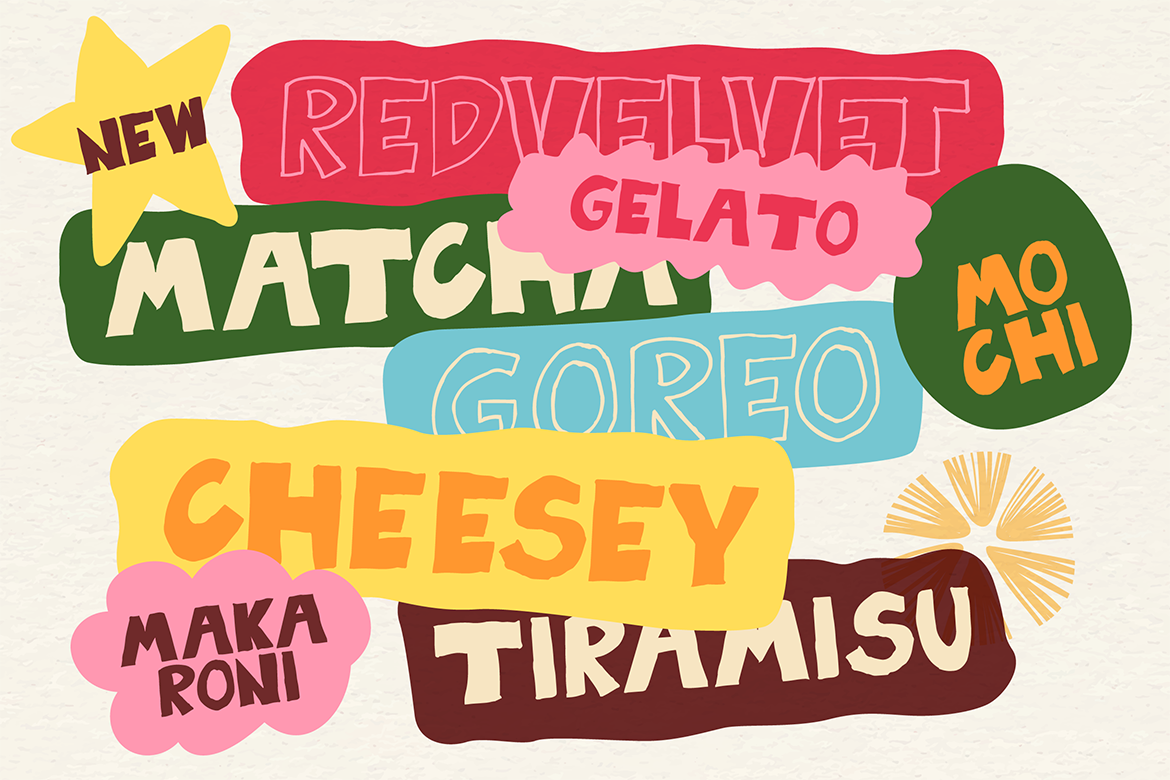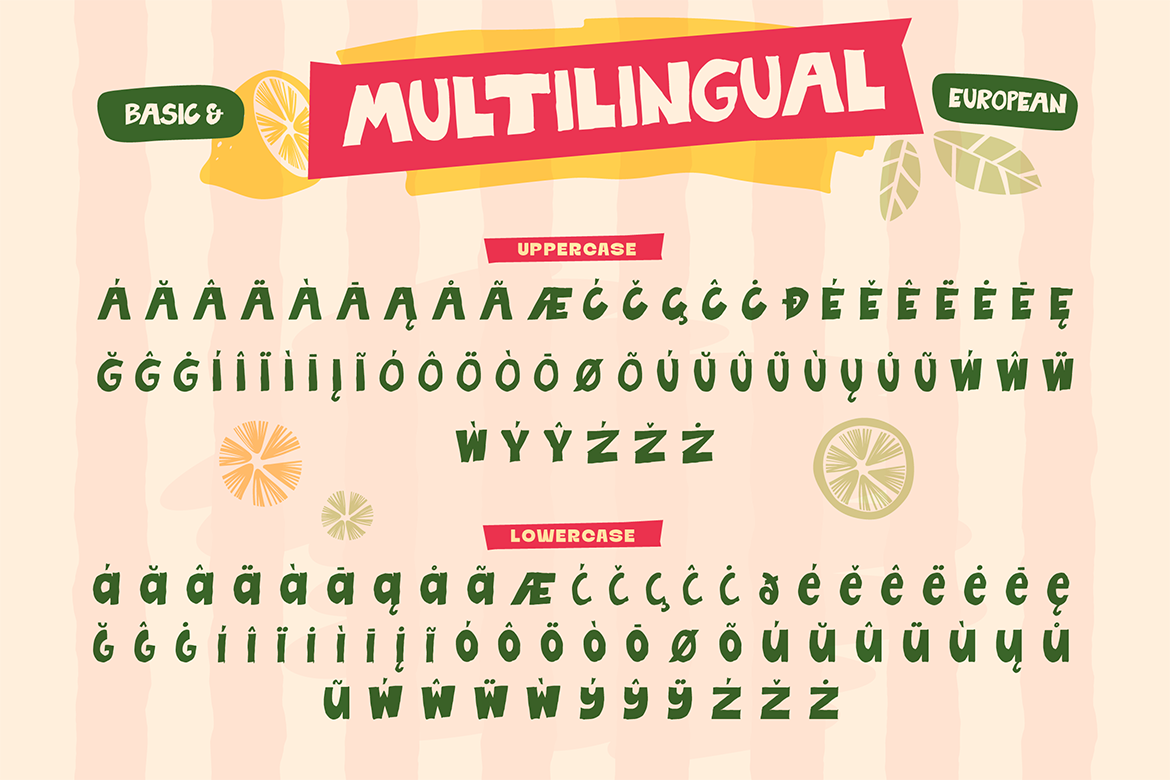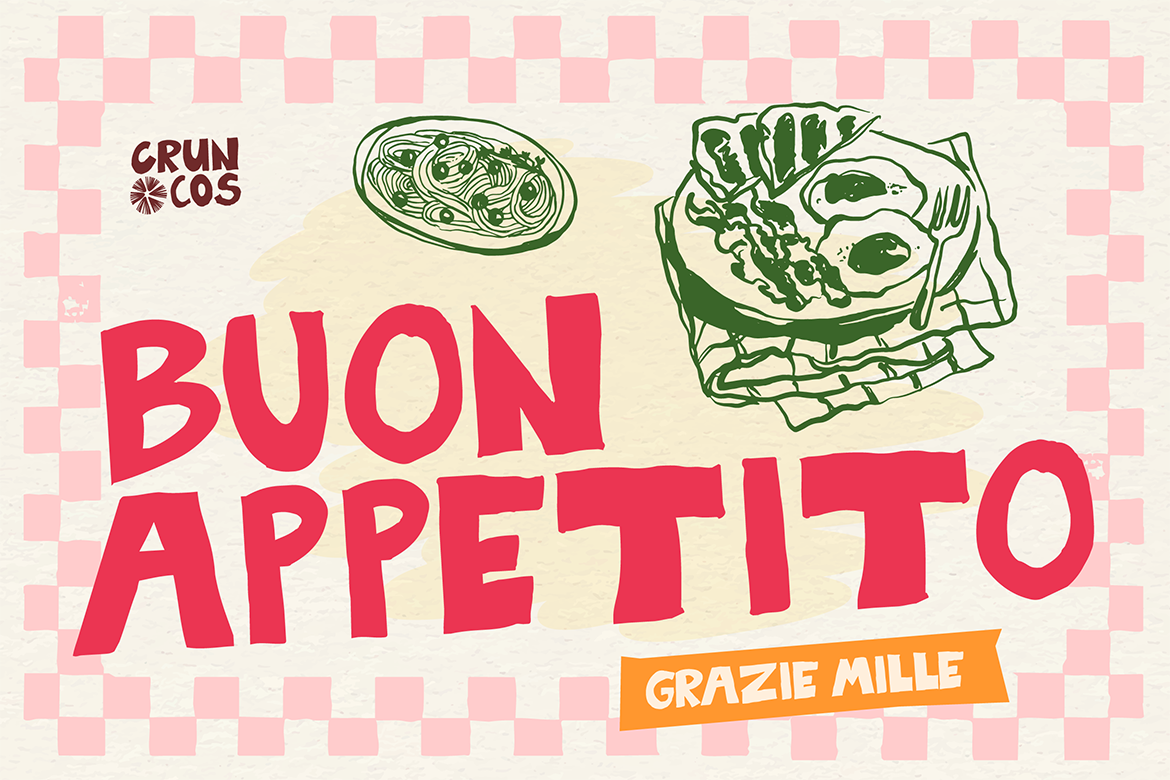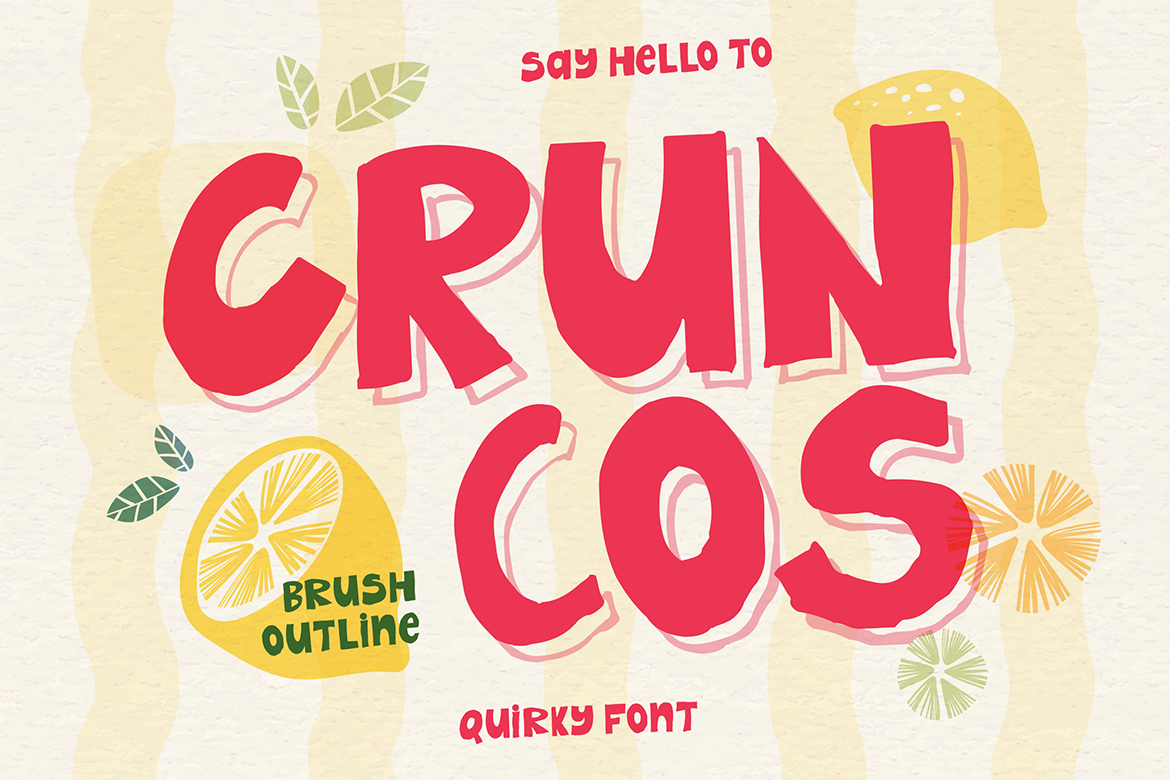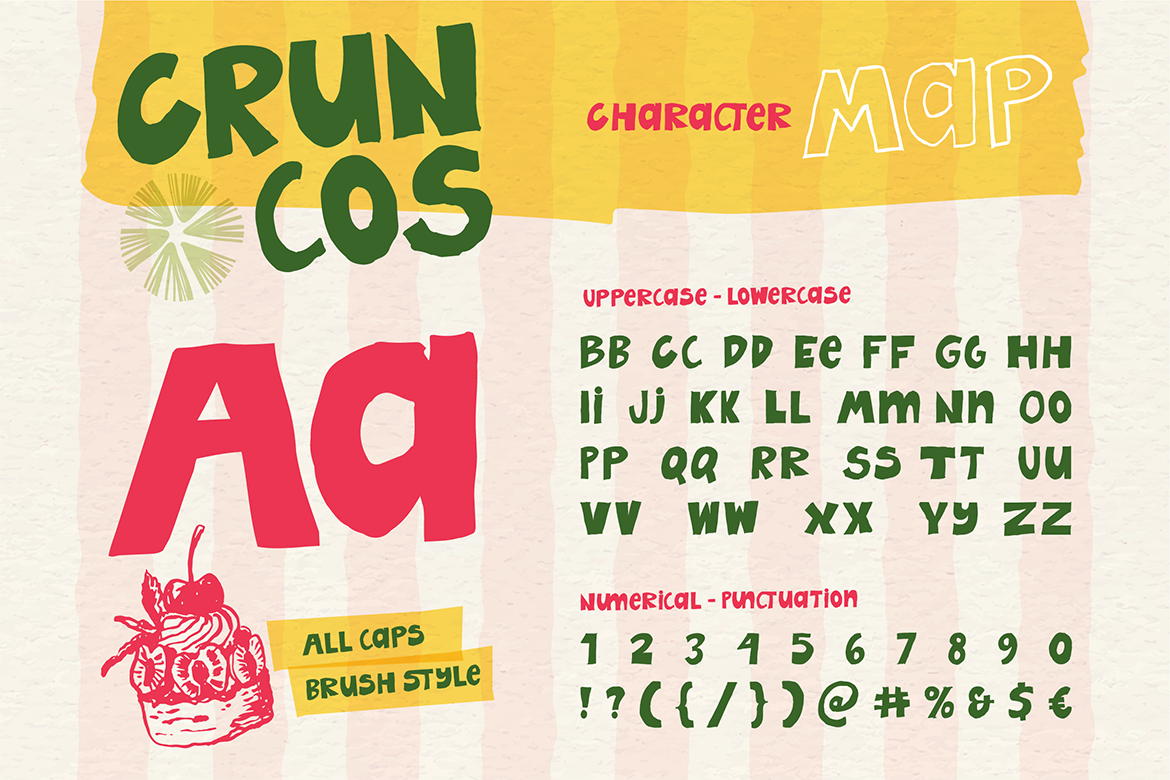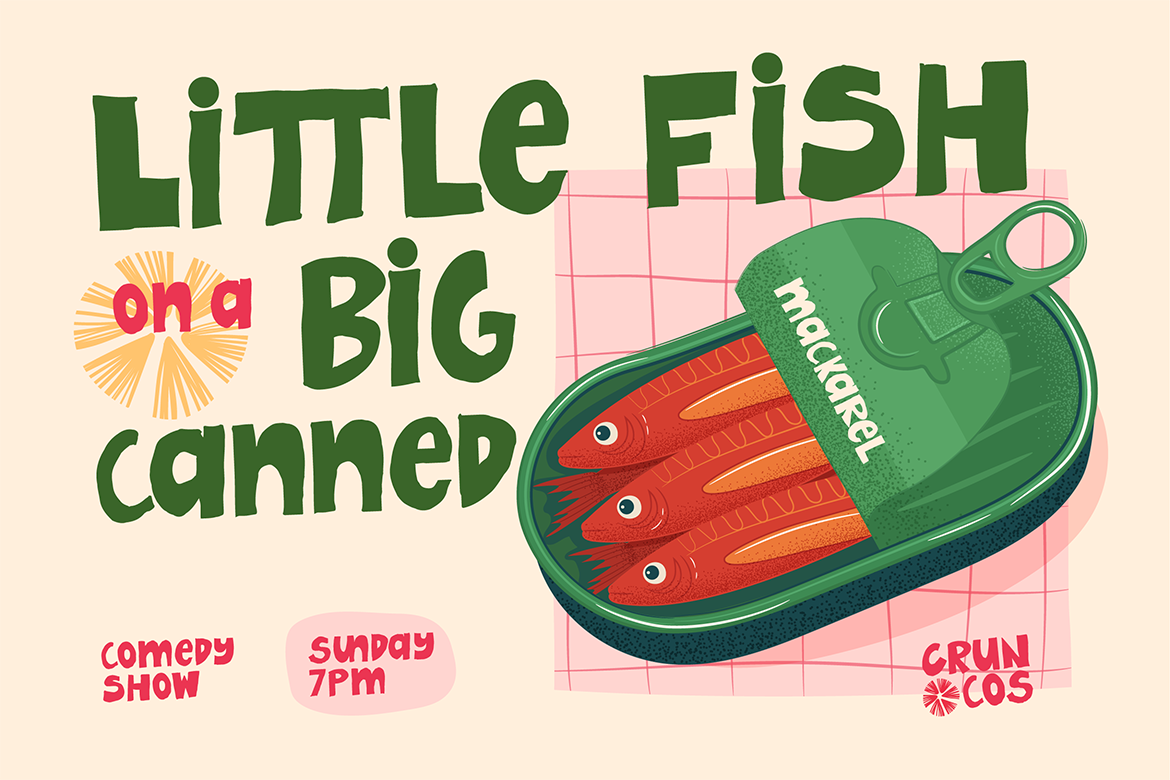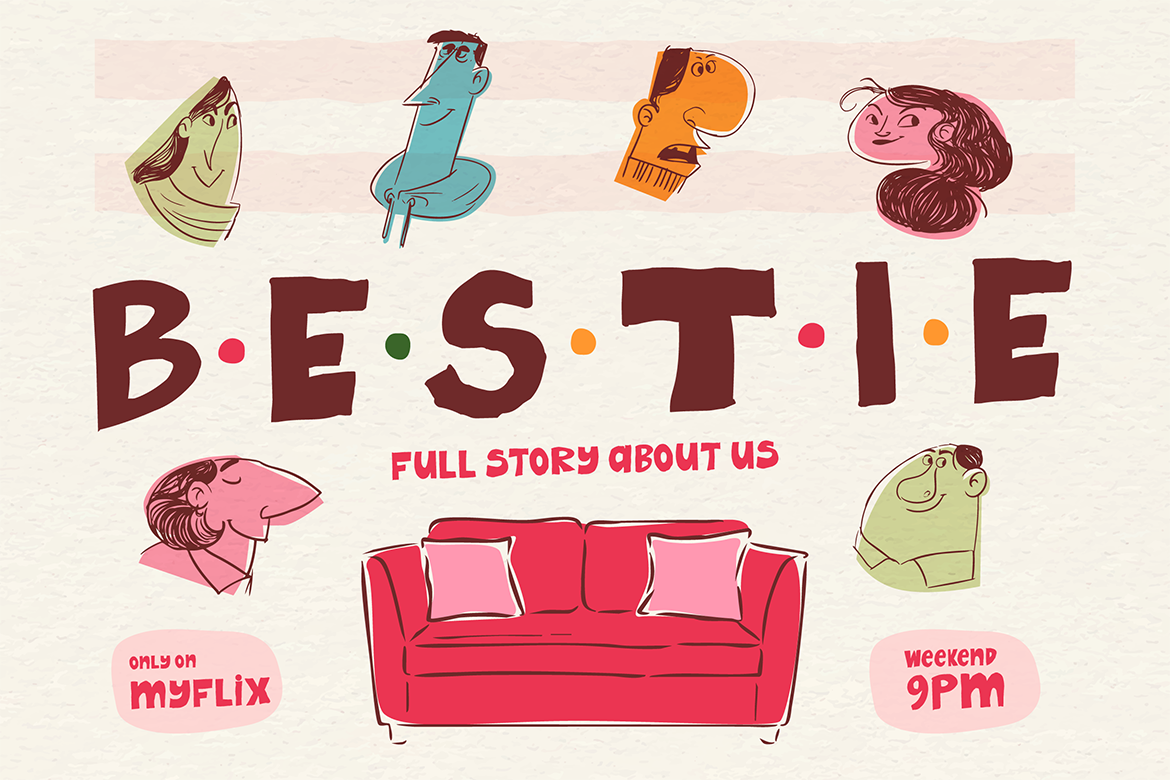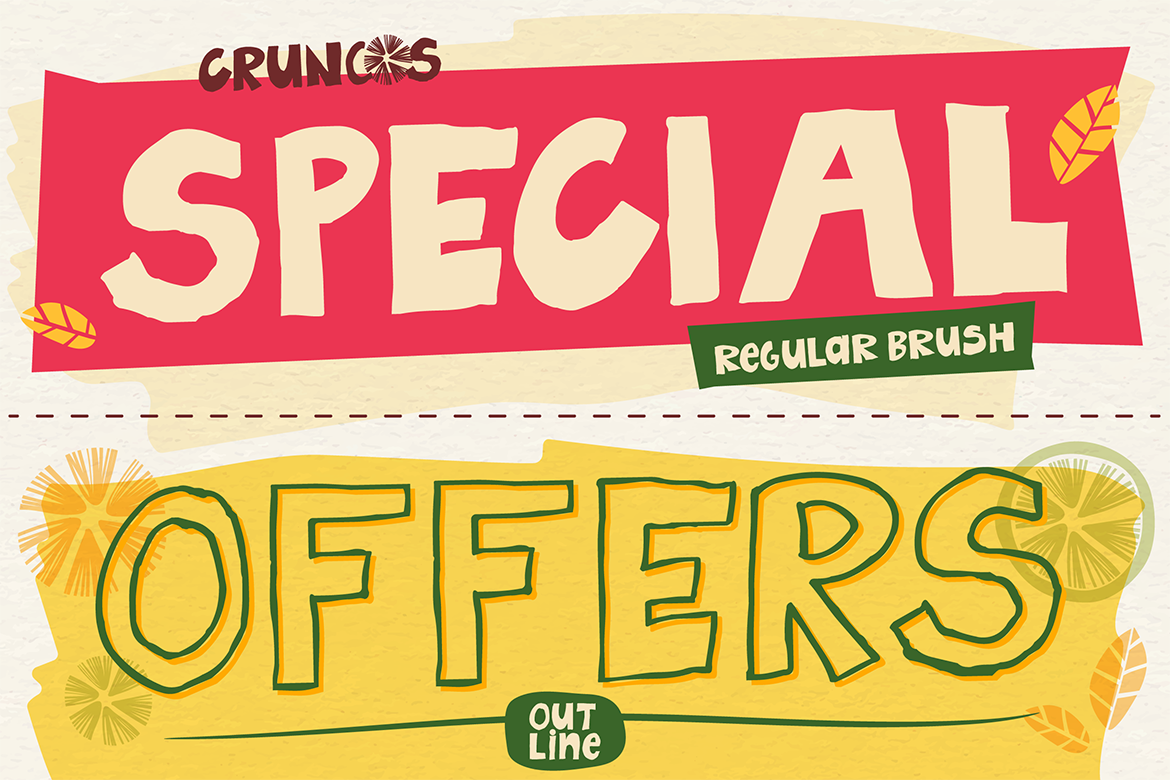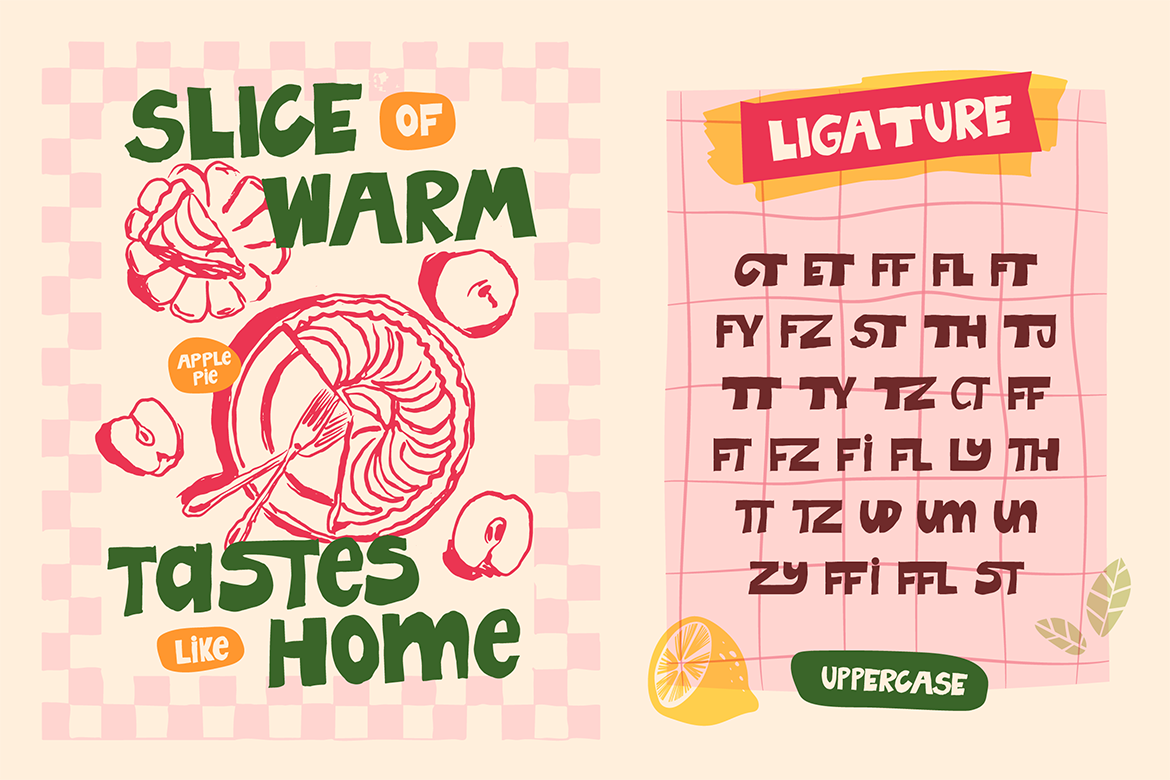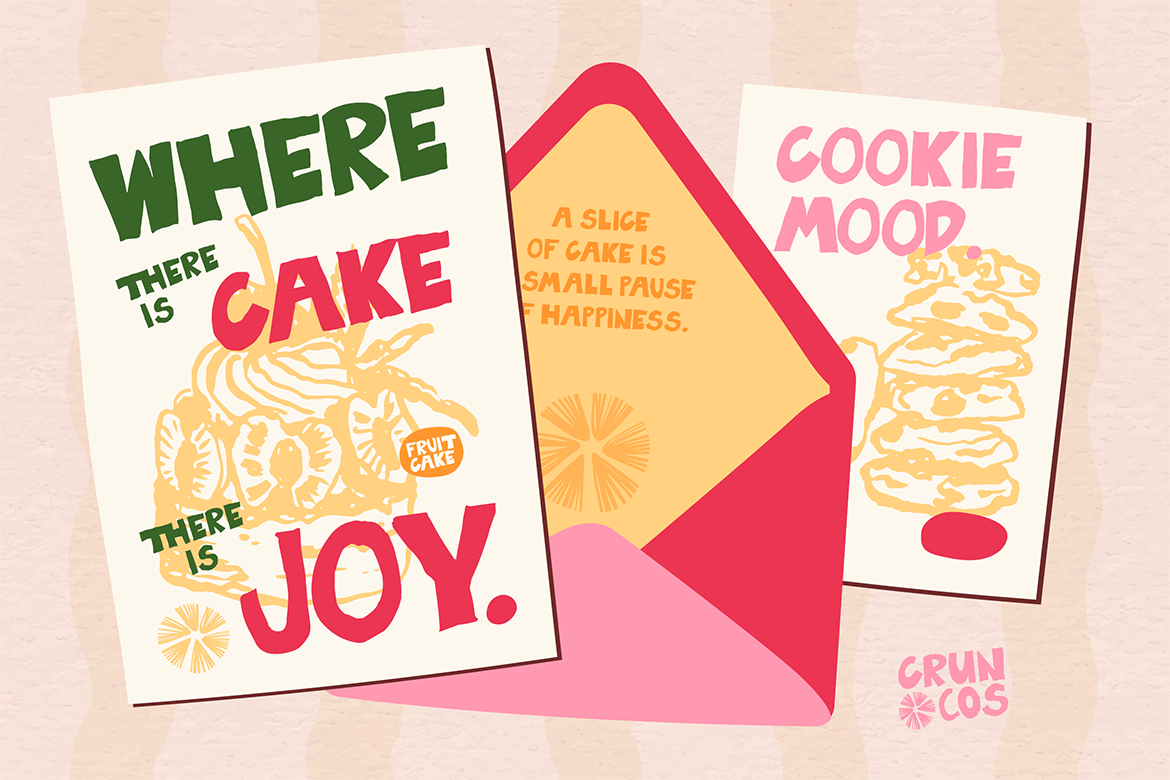
Cruncos is a playful and bold brush font with a fun, hand-drawn feel. Designed in all caps, this font comes with solid brush style and outline style, giving you more flexibility to mix and match in your designs.
Inspired by food packaging, café menus, posters, and cheerful branding, Cruncos delivers a quirky, crunchy, and friendly vibe that instantly grabs attention. Its slightly rough edges and organic strokes make your text feel warm, expressive, and full of personality.